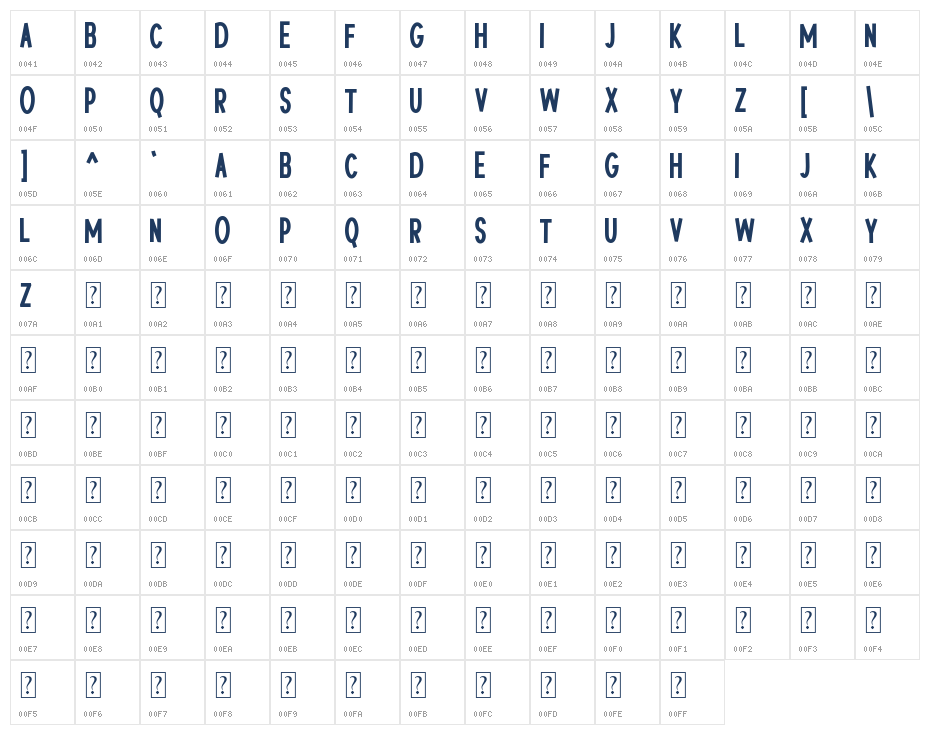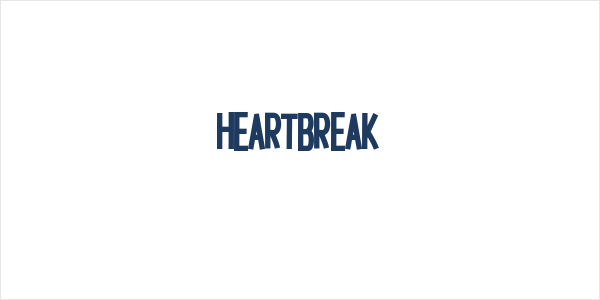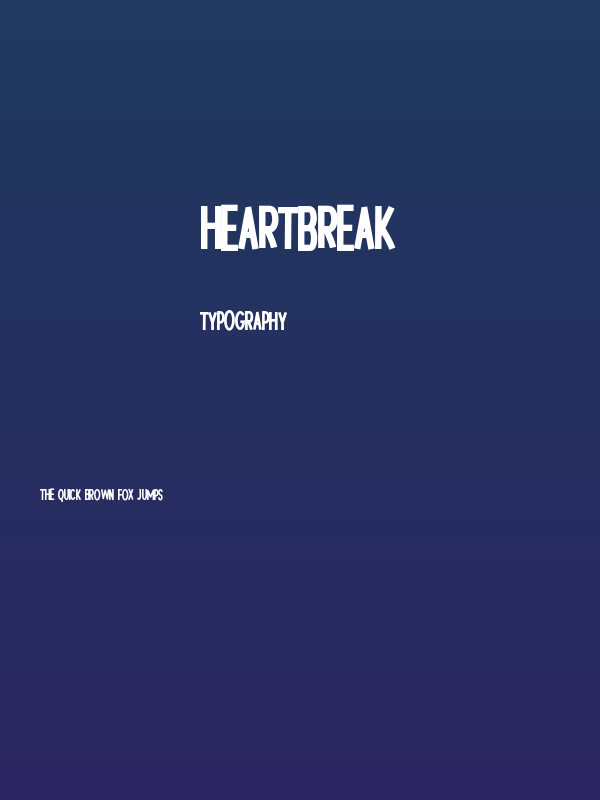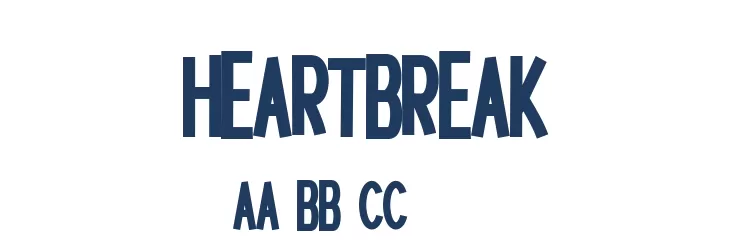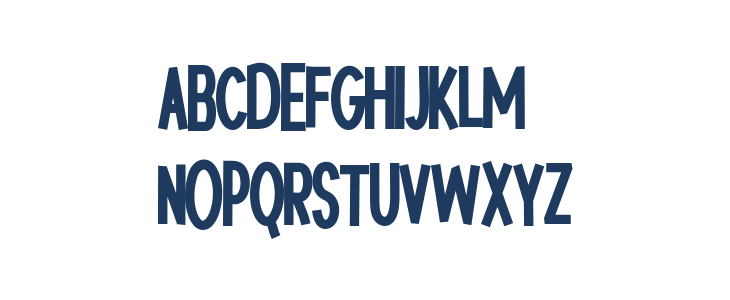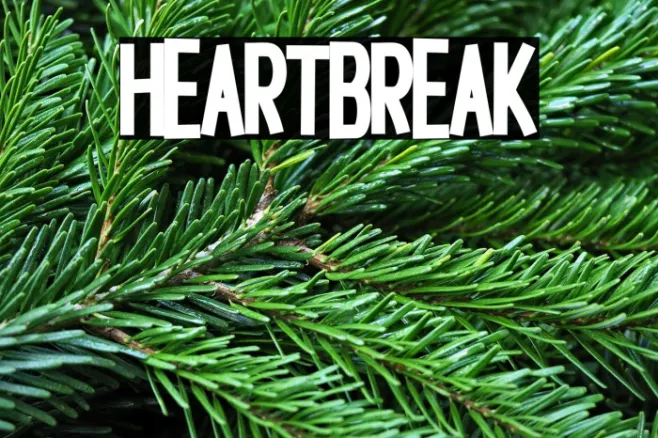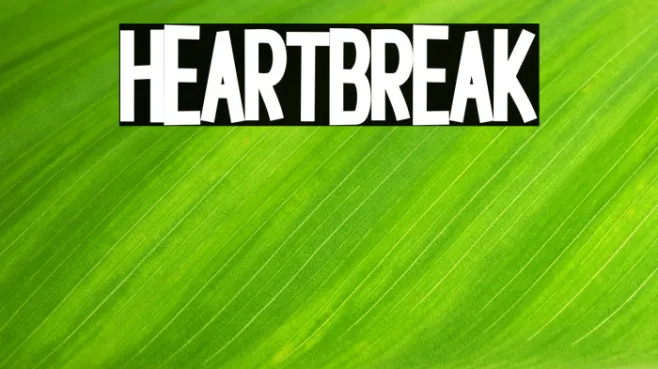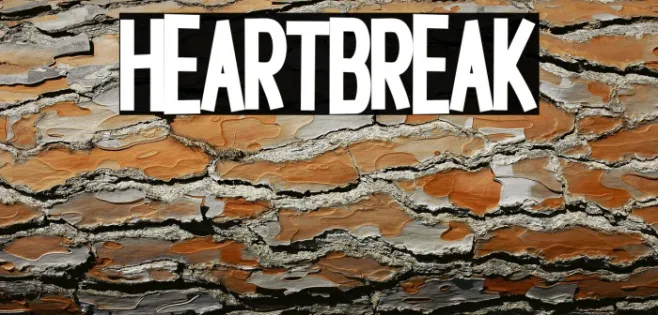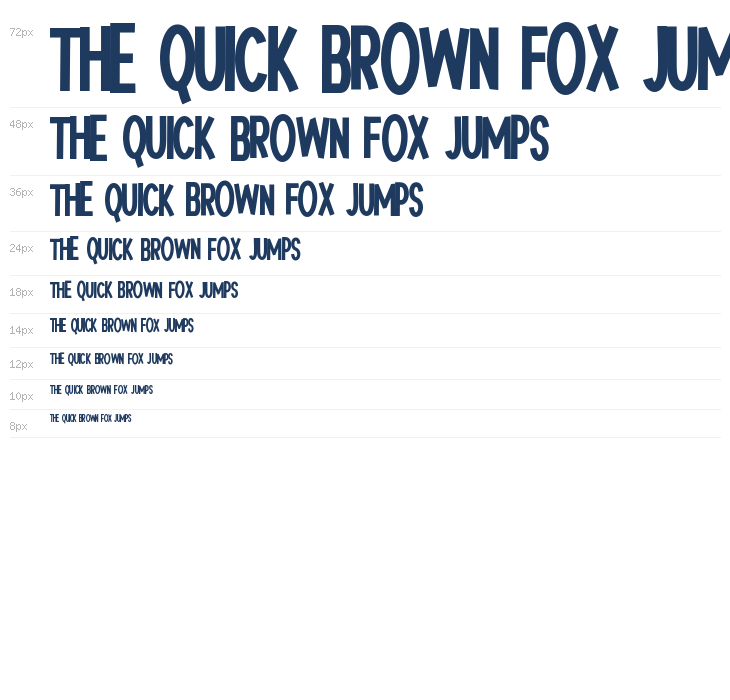
Heartbreak Font
Heartbreak Description
Bold, playful, and slightly irregular sans-serif font with a cartoonish style.
Heartbreak
| Overall Style | Playful, Cartoonish, Casual |
| Use Case | Headlines, Posters, Children's media, Logos |